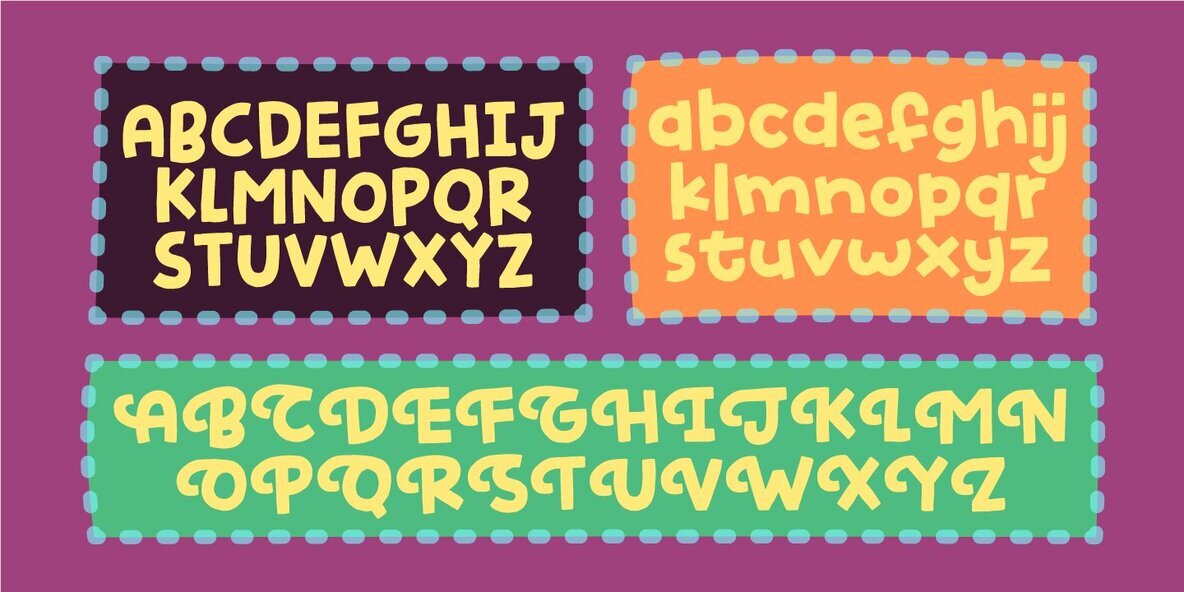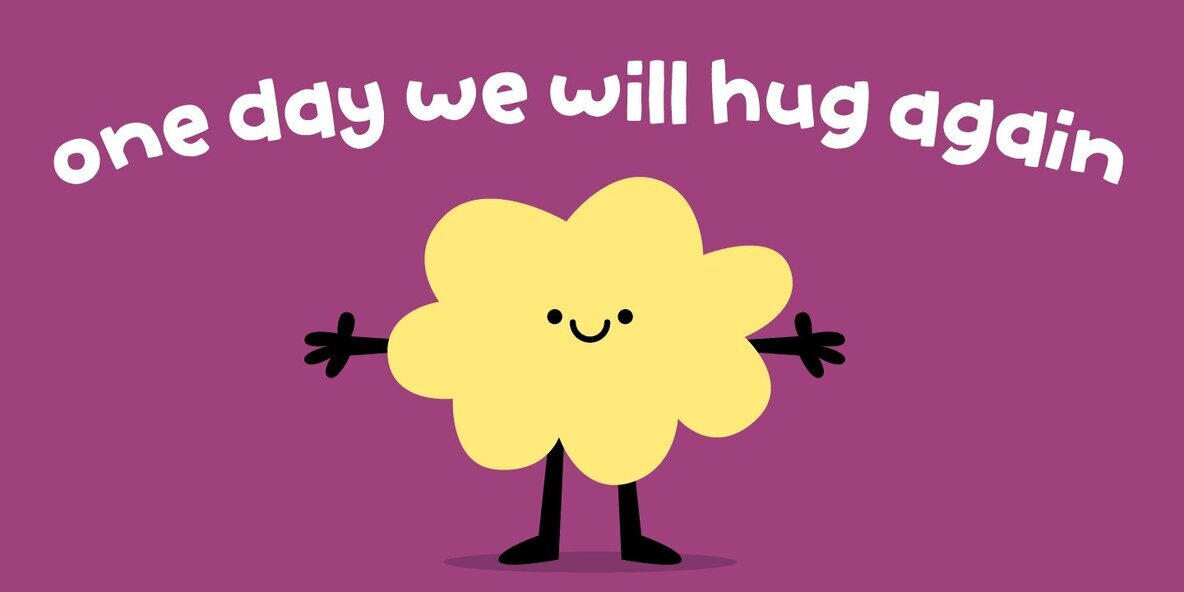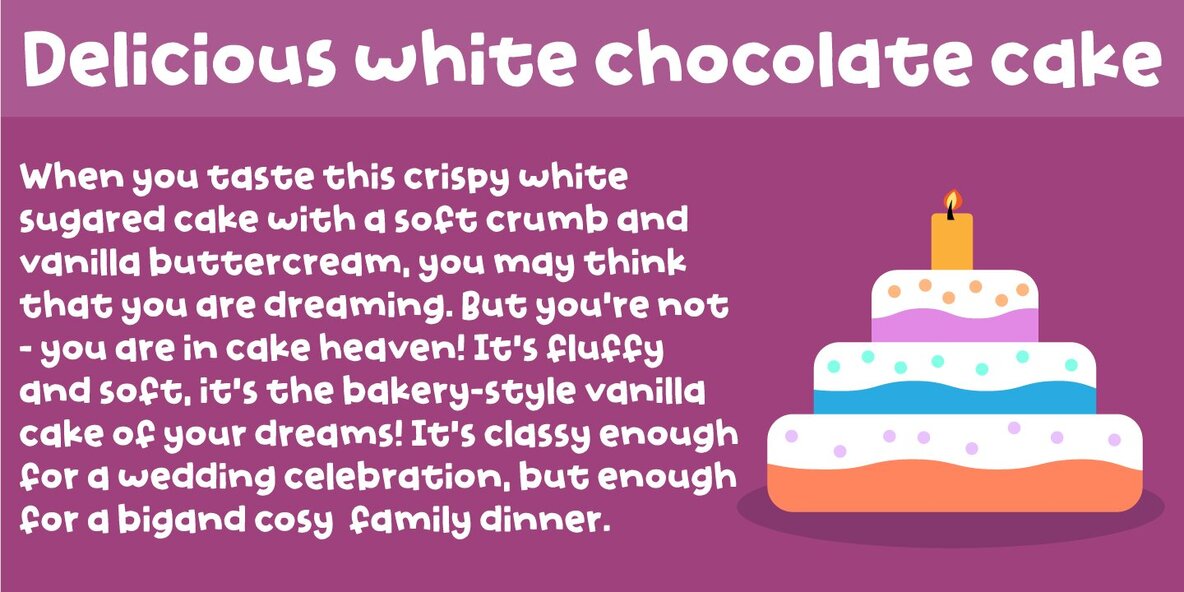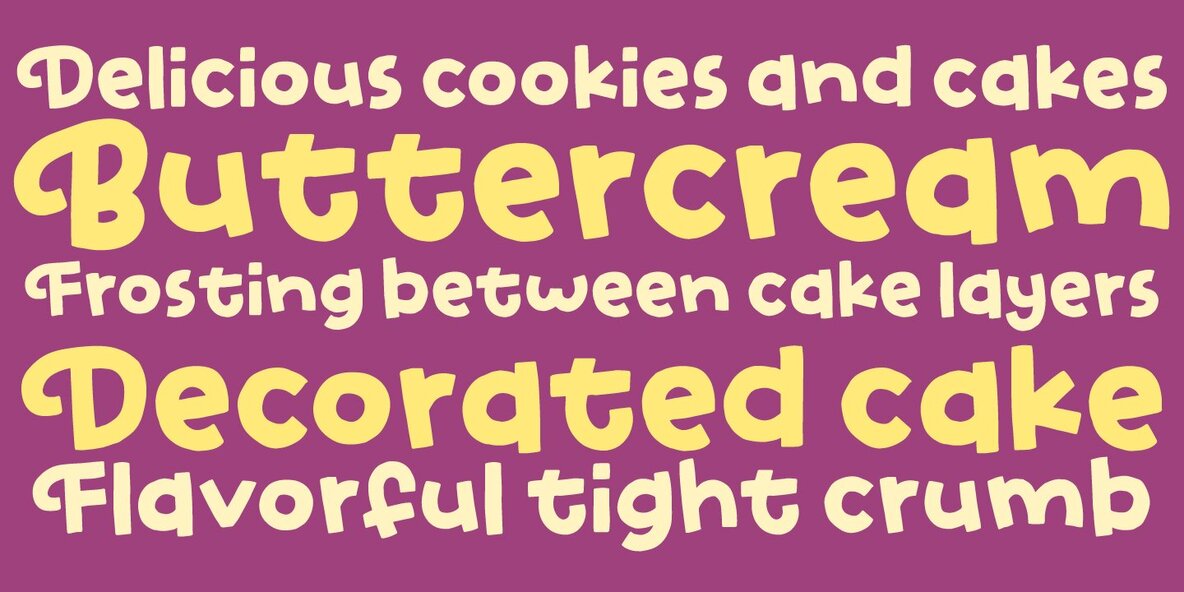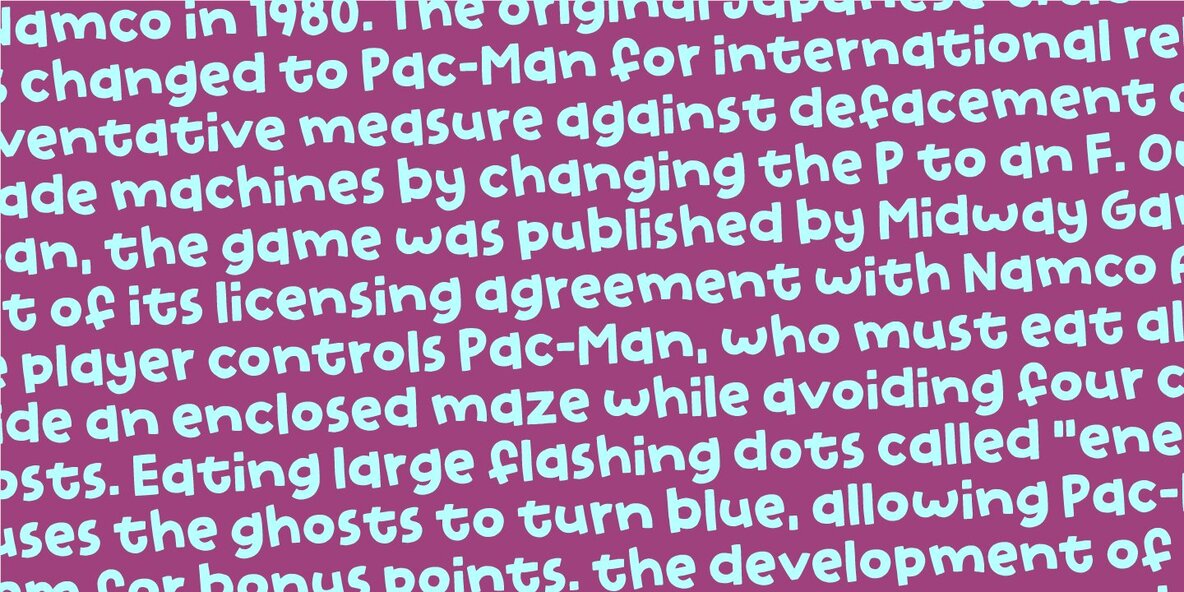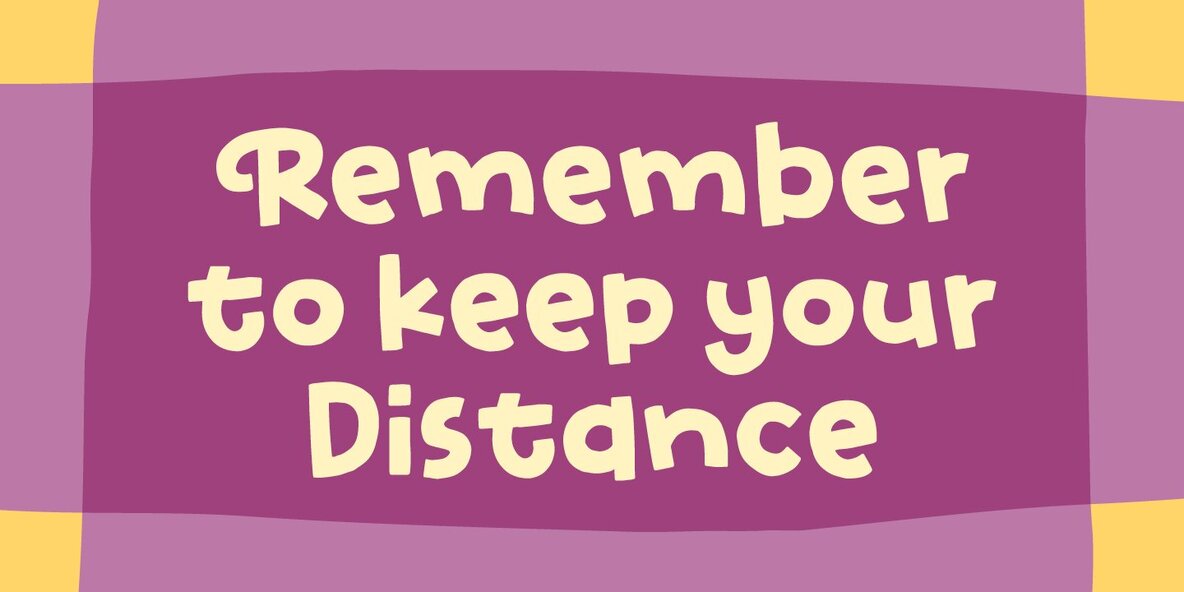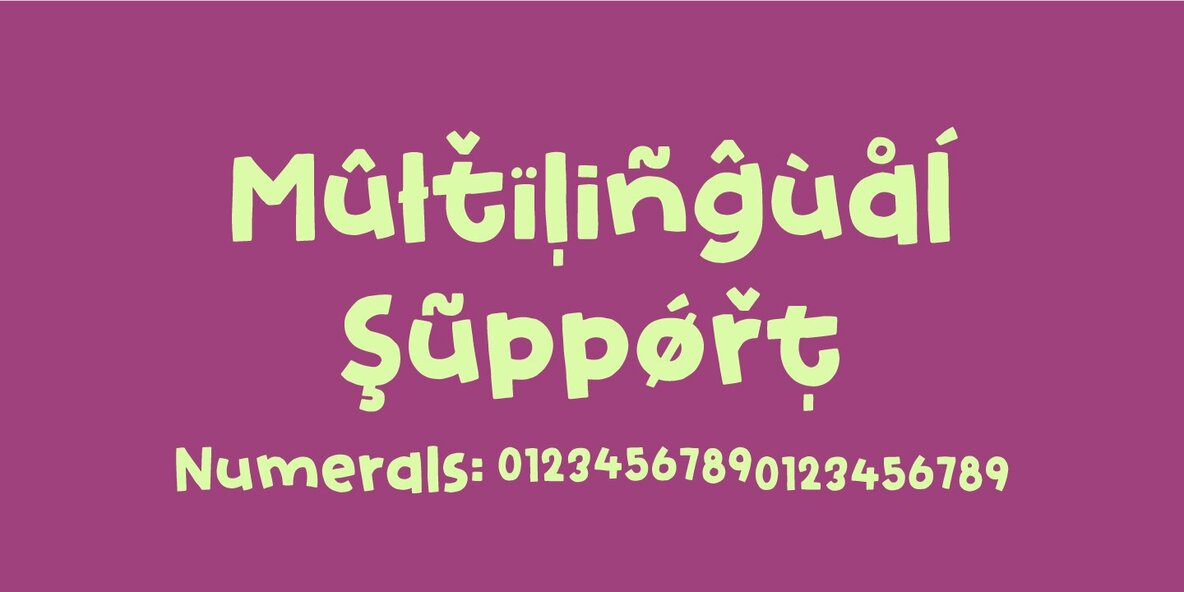
Funny Note Font
Funny Notes is based on a recipe for a vanilla cake. And how is that? The reason is that Funny Notes is full of calories, vanilla and a spoonful of comic soft crumb!